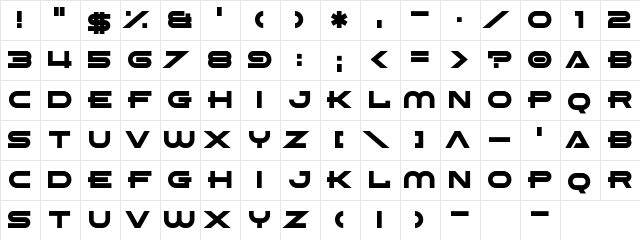
Absolute Xero Regular
| Designer | NAL |
Design Context for Absolute Xero Typeface
Absolute Xero is a composed and adaptable typeface that performs quietly and consistently across a wide range of design contexts.
Pro Tip: Pair Absolute Xero with a font of contrasting weight or personality to build a more expressive typographic hierarchy.